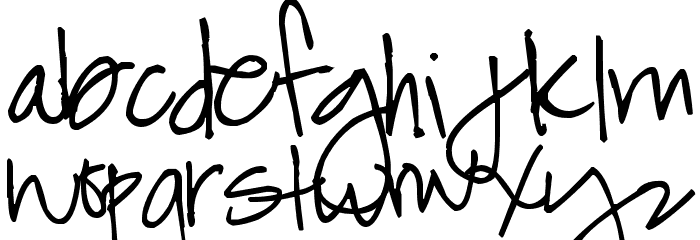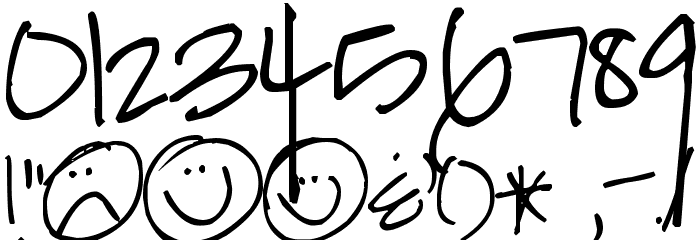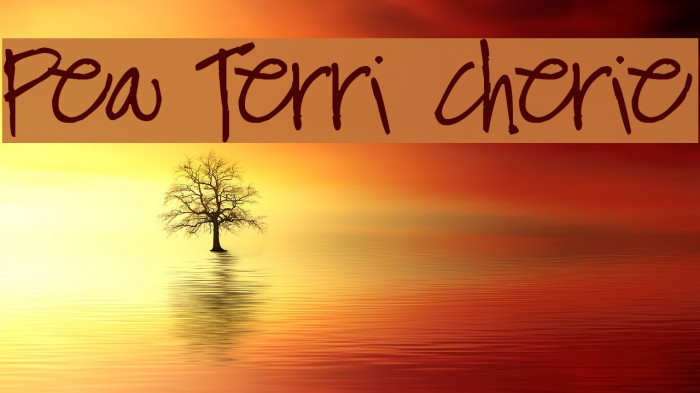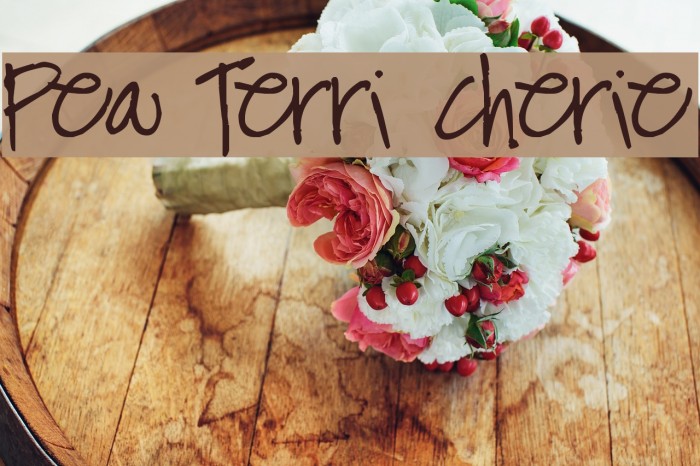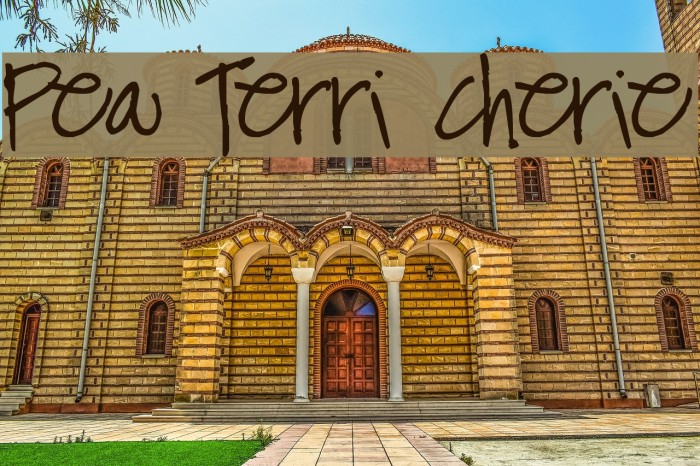
Pea Terri Cherie Font
This font exudes a playful and casual handwritten style, characterized by its loose and free-flowing strokes. The letters are unevenly sized and spaced, giving it an informal and spontaneous appearance. The uppercase and lowercase letters maintain a consistent style, with some letters featuring exaggerated loops and curves. Numbers and special characters follow the same whimsical design, adding to the font's overall charm. The font's organic and lively nature makes it suitable for projects that require a personal touch or a sense of fun.
A playful, casual handwritten font with free-flowing strokes and uneven spacing.
- Proposed Projects: Ideal for greeting cards, personal notes, children's books, and playful branding.
- Character Spacing: Wide
- Overall Style: Casual
- Use Case: Logos, Headlines, Informal text